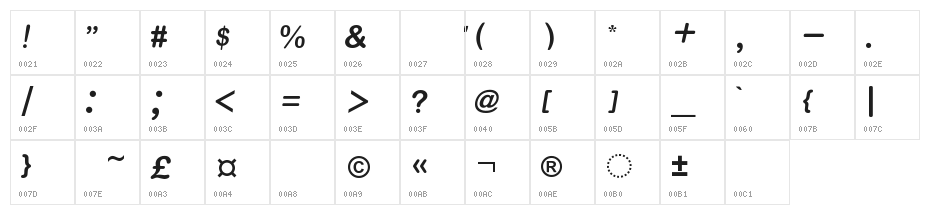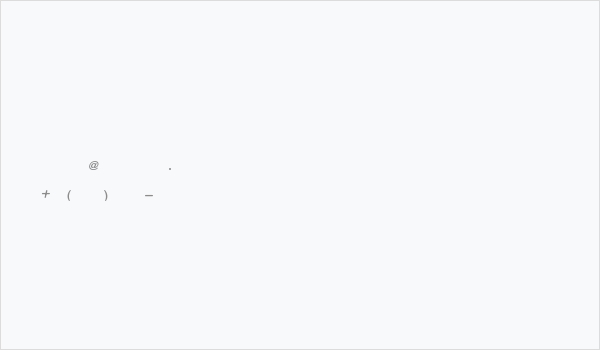
Sundanese Unicode Font
Sundanese Unicode Description
This font features a unique script that is part of the Sundanese Unicode block, representing the traditional script used by the Sundanese people of West Java, Indonesia. The characters are distinct with a flowing, rounded style that reflects the cultural heritage of the region. The script includes a variety of symbols and characters that are used in the Sundanese language, providing a comprehensive set for writing in this script. The design is both functional and aesthetically pleasing, making it suitable for cultural and educational projects.
Overall StyleTraditional
Use CaseCultural documents, educational texts, heritage projects.
Proposed ProjectsIdeal for cultural preservation projects, educational materials, and any design work that aims to incorporate Sundanese heritage.